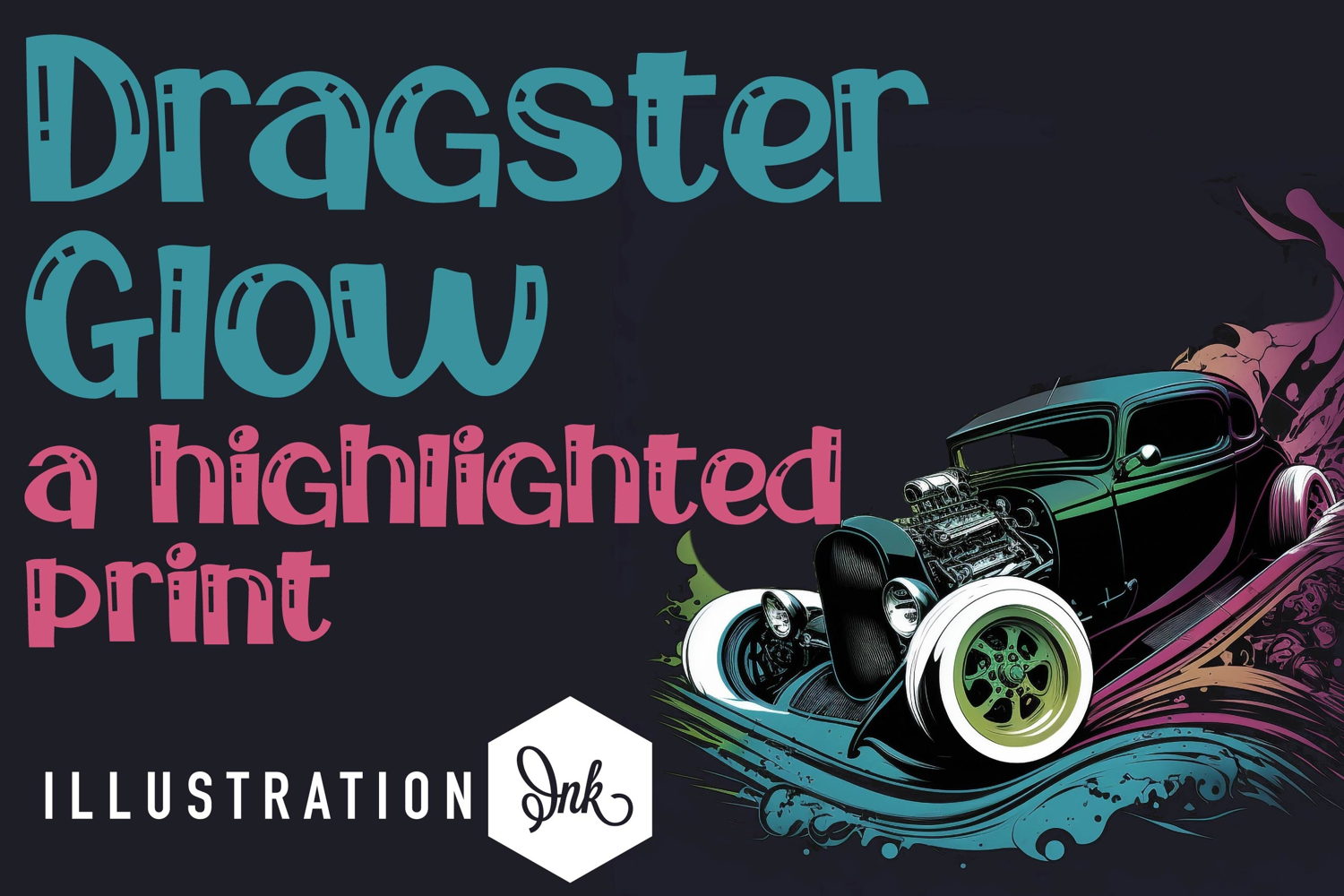
This hand-crafted font is a whimsical sans serif font with a chunky, crafty feel.
• The letters are not perfectly uniform in size or shape.
• There may be slight variations in the spacing between letters and words.
• The font may have a "wiggly" or "squiggly" appearance.
• The font may be difficult to read at small sizes.